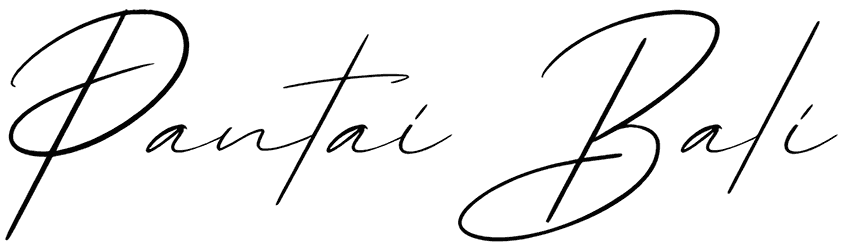
Pantai Bali Font
Say hello to the fresh handwritten font that can entice your hearts and minds to its delicate, friendly layouts instantly to immerse them and spark the onlookers.
Here, our website library gives you the chance of trying the Pantai Bali font in designing any documents, quotes, flyers, business cards, and other displays that need a personal touch to share a warm sense. With this script font, try to be the one who flips the game and gets it back on track.